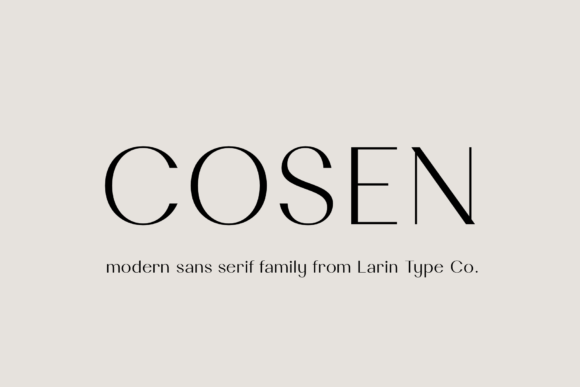
Introducing Cosen, the best font for elegant logos in your projects! Created by the talented Pasha Larin, Cosen is an elegant and modern sans-serif font that exudes sophistication and class.
Its graceful curves and flowing lines make it the perfect choice for any design that requires a touch of elegance and refinement. The font family is sans-serif, which means it is simple and straightforward, making it easy to read and understand.
With Cosen, you can add a touch of elegance and sophistication to any project, from logos to web design to print materials. The font's versatility and adaptability make it a fashionable solution for all your creative endeavors.
But Cosen is more than just a pretty font. Its clean and natural look also makes it a great choice for design projects that require a grounded and organic feel. It strikes the perfect balance between modernity and nature, making it an ideal font for those who want to convey a sense of style and authenticity.
In short, if you want to create a design that oozes class and sophistication, Cosen is the font for you. Its stylish and graceful appearance will make your projects stand out from the crowd, while its natural and grounded feel will keep them relatable and approachable.